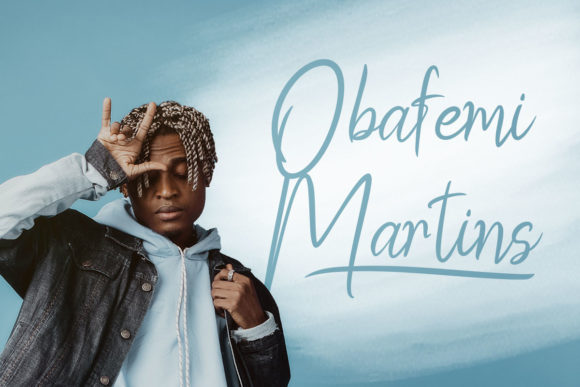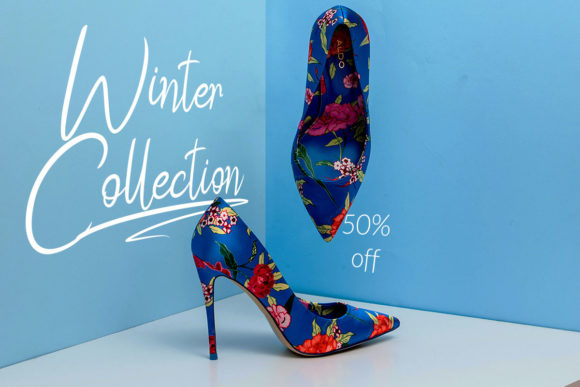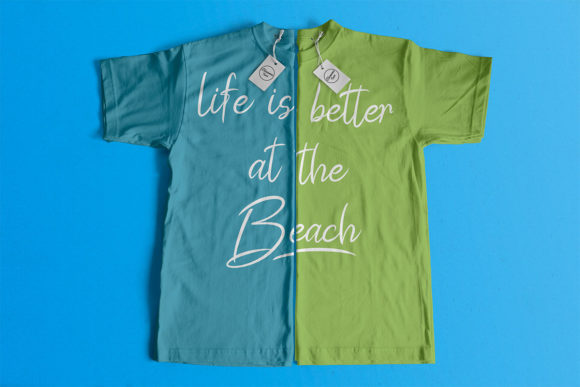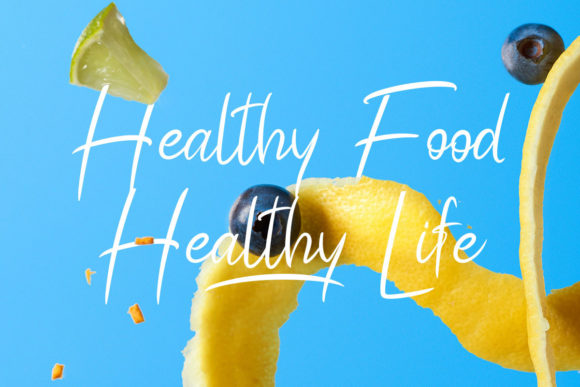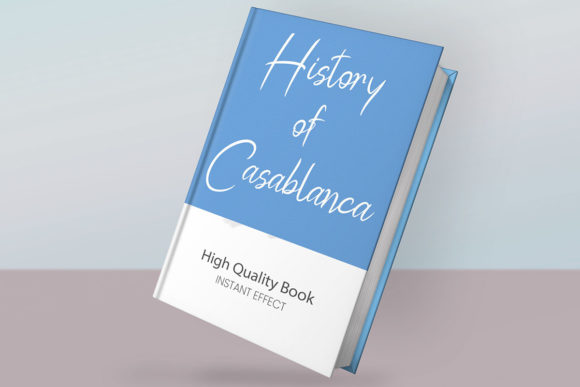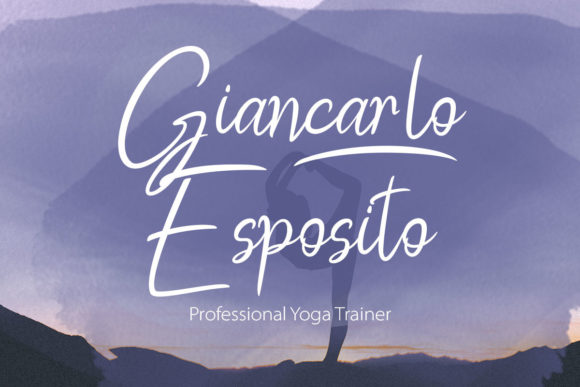
Introducing Alena Freya Font: The Epitome of Elegance and Charm
In the realm of typography, few fonts manage to capture the essence of romance and elegance as effortlessly as Alena Freya. This simple yet adaptable handwritten font is a masterpiece of modern design, offering a unique blend of sophistication and whimsy that can elevate any project to new heights. Whether you’re a designer looking for the perfect typography to adorn your latest creation or a crafter seeking to add a touch of personal flair to your handmade goods, Alena Freya is the ideal choice.
The Allure of Alena Freya
Alena Freya Font stands out in the crowded world of digital typography due to its distinctive characteristics. Each character is imbued with a sense of charm and elegance, making it perfect for projects that call for lovely, romantic typography. From wedding invitations and personal stationery to branding and advertising materials, Alena Freya brings a level of sophistication and grace that is hard to match.
Key Features of Alena Freya Font
- Handwritten Elegance: Alena Freya boasts a beautifully handwritten style that adds a personal touch to any project. Its fluid strokes and graceful curves make it a joy to read and behold.
- Versatility: One of the font’s greatest strengths is its adaptability. It can be used in a variety of contexts, from formal events like weddings and galas to more casual applications such as blog posts and social media graphics.
- Simple yet Impactful: Despite its simplicity, Alena Freya Font makes a significant impact. Its clean lines and uncluttered design ensure that it stands out without overwhelming the senses.
- Romantic Appeal: For projects that require a romantic or feminine touch, Alena Freya is unparalleled. Its elegant characters evoke a sense of nostalgia and warmth, making it perfect for designs that aim to connect on an emotional level.
Using Alena Freya in Design Projects
Tips for Designers:
- Pair with Contrasting Fonts: For maximum effect, consider pairing Alena Freya with a more structured, sans-serif font. This contrast will highlight the font’s unique qualities and create visual interest.
- Experiment with Colors: While Alena Freya looks stunning in classic black and white, don’t be afraid to experiment with color. Soft pastels, rich jewel tones, and metallics can all enhance the font’s romantic appeal.
- Pay Attention to Spacing: To maintain readability and ensure that the elegance of the font shines through, pay close attention to spacing. Adequate line spacing and careful kerning are essential for creating a polished look.
Alena Freya in Crafting and DIY Projects
Crafters and DIY enthusiasts will also find Alena Freya to be a valuable addition to their toolkit. Whether you’re creating handmade cards, personalized gifts, or custom home decor, this font can add a professional touch to your creations.
Tips for Crafters:
- Use in Conjunction with Watercolor: The fluid, organic nature of Alena Freya pairs beautifully with watercolor illustrations and backgrounds. This combination creates a dreamy, ethereal effect that’s perfect for special occasions.
- Add Embellishments: Consider adding subtle embellishments like floral motifs or geometric patterns to enhance the romantic feel of your projects.
- Experiment with Different Surfaces: Alena Freya can be used on a variety of surfaces, from paper and fabric to wood and glass. Don’t be afraid to experiment with different materials to find the perfect match for your project.
| Font Name | Alena Freya Font |
| Author | Letterutha |
Alena Freya Font is a versatile and elegant handwritten font that can add a touch of romance and sophistication to any project. Whether you’re a designer looking to create stunning visual content or a crafter seeking to personalize your handmade goods, Alena Freya is an excellent choice. Its simplicity, adaptability, and charm make it a valuable asset in the world of typography. So why wait? Discover the beauty of Alena Freya for yourself and take your designs to new heights of elegance and charm.